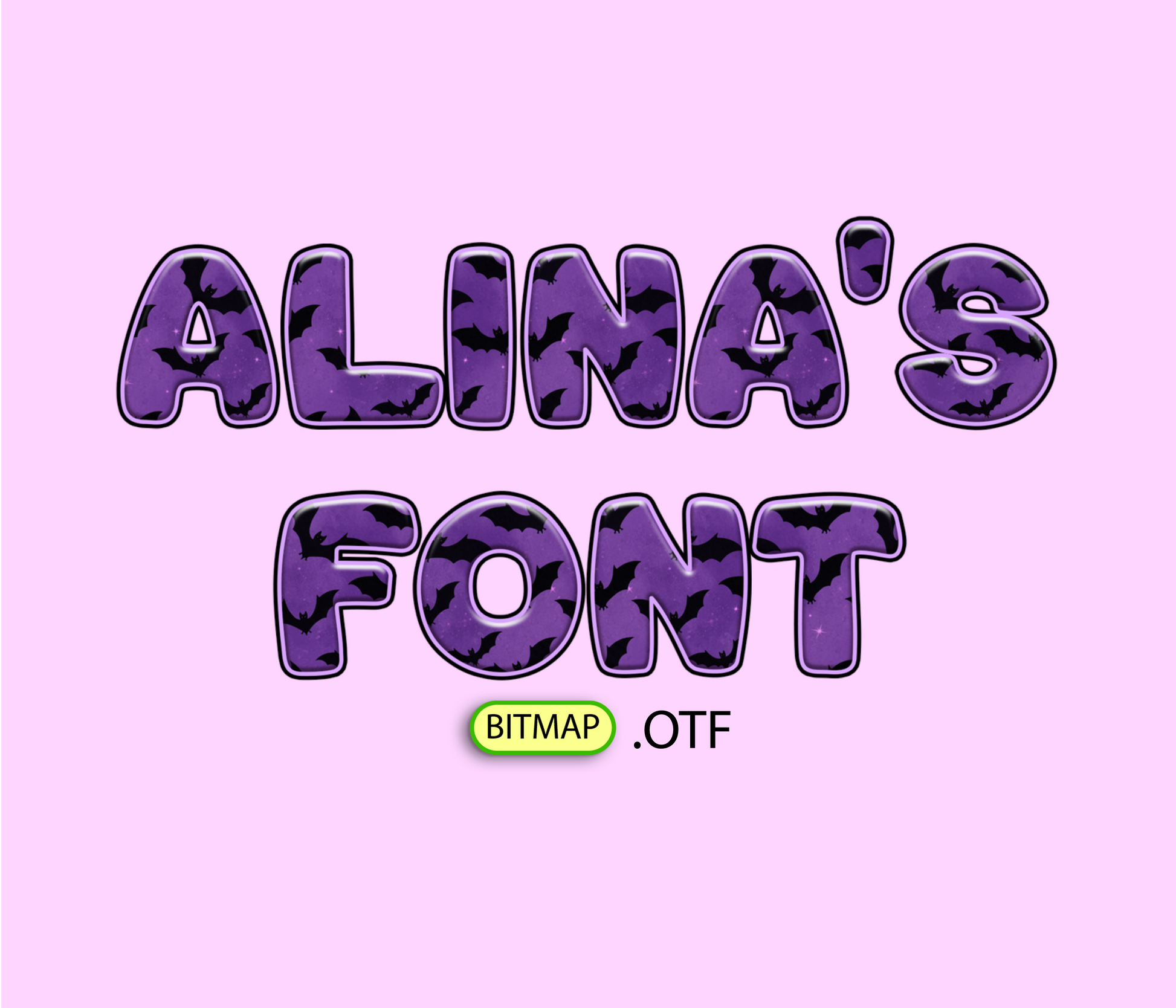
Scary Fun Halloween Pattern Font
Step into the spooky world of frightful festivities with our Scary Fun Halloween Pattern font, capturing the essence of haunted nights and trick-or-treat adventures. Perfect for Halloween enthusiasts, party planners, event organizers, and designers, this font brings the playful, eerie spirit of October celebrations to your projects. Create spine-tingling materials, merchandise, or digital content with the festive energy of haunted holidays.
Our Scary Fun Halloween Pattern font features spooky, decorative lines and festive characters reflecting the world of Halloween magic. Ideal for:
- Event Promotions: Create haunting invites, posters, and banners for Halloween parties, costume contests, and trick-or-treat events that capture the spirit of frightful fun
- Merchandise Design: Perfect for t-shirts, posters, and accessories that showcase the playful aesthetic of jack-o-lanterns and spooky celebrations
- Digital Media: Enhance websites, blogs, and social media with festive headers and graphics that express the excitement of Halloween nights
- Seasonal Content: Add authentic flair to party decorations, costume designs, and creative projects inspired by haunted traditions
- Personal Projects: Bring spooky charm to scrapbooking, DIY crafts, and home decor inspired by the world of October festivities
Our font pays tribute to the iconic world of Halloween celebrations, empowering your designs with its playful and spooky spirit. Whether crafting promotional materials, designing merchandise, or adding a festive touch to personal projects, this font communicates the fun essence of haunted holidays. Ready to inject frightful excitement into your creations? This font is your key to exciting, impactful design.